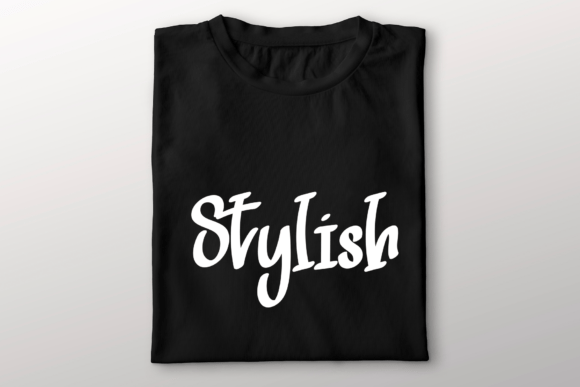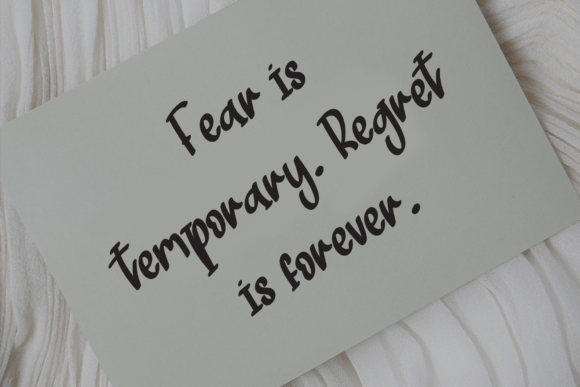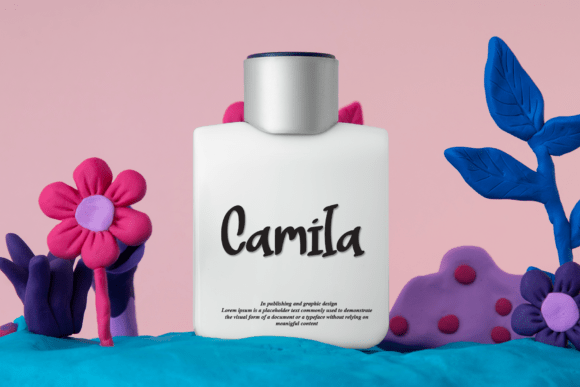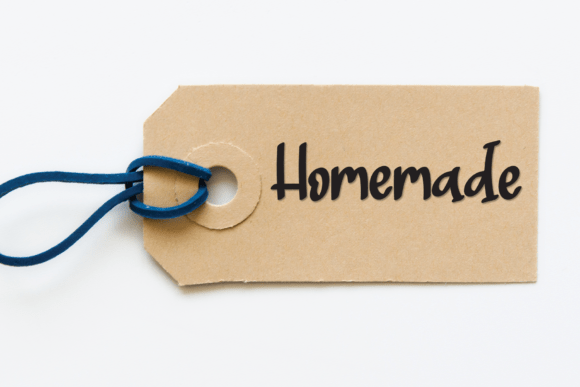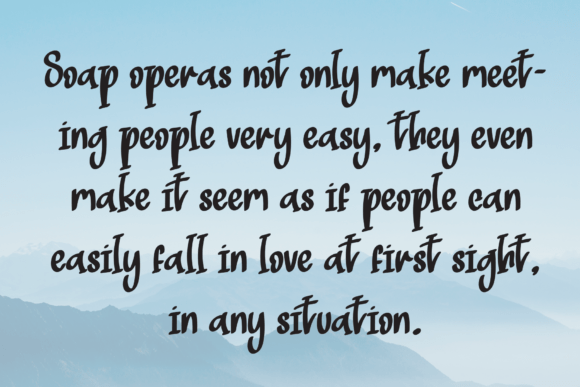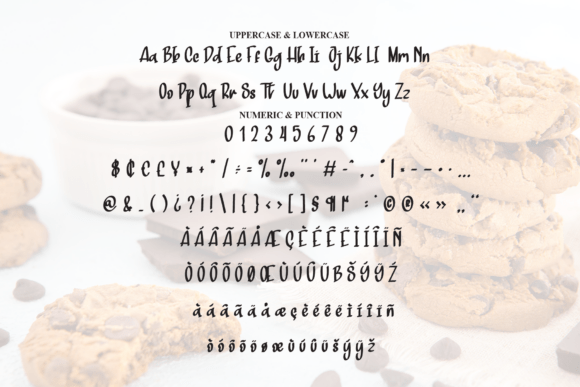
Introduction to Hey Cookies Font
Have you ever been stuck trying to find the perfect font for your creative project, only to end up with something that just doesn’t quite fit? We’ve all been there. But what if I told you that there’s a font that can add a touch of whimsy and personality to even the most mundane designs? Enter the Hey Cookies Font, a high-quality, free download that’s perfect for designers looking to add a little extra something to their work.
With its transparent background and wide range of applications, the Hey Cookies Font is a valuable resource for any creative project. Whether you’re working on a wall display, wedding invitation, or social media post logo, this font is sure to impress. And with its long-term support and free features, you can trust that you’re getting a top-notch design resource that will keep you going for years to come.
Key Features of Hey Cookies Font
- High-quality design: The Hey Cookies Font offers a unique and modern design perfect for creative projects.
- Transparent background: This font features a transparent background, allowing for easy customization and seamless integration with various design elements.
- Perfect for digital design: With a resolution of 300 DPI, the Hey Cookies Font is ideal for digital design projects, including web design, graphic design, and more.
- Unique and playful style: The font’s unique and playful style makes it an excellent choice for creative projects, such as children’s books, party invitations, and more.
Honest Review: Hey Cookies Font
I recently stumbled upon the Hey Cookies Font, a design resource that has left me feeling quite optimistic about its potential. The font is offered as a free download, which is always a plus when it comes to creative projects.
- What works well: ✨ The font is a high-quality, playful design that’s perfect for adding a touch of whimsy to your projects. The transparent background makes it easy to layer with other design elements.
- What works well: ✨ The font is incredibly versatile and can be used for a wide range of creative projects, from children’s book illustrations to social media graphics.
- ⚠️ The font may not be suitable for formal or professional projects, as it’s a bit too playful for those types of designs.
- ⚠️ The font’s transparency can sometimes make it difficult to read, especially on darker backgrounds.
Overall, I’m really impressed with the Hey Cookies Font. While it may not be the perfect choice for every project, it’s a fantastic design resource for anyone looking to add a bit of personality to their work. If you’re in the market for a fun, high-quality font, I’d definitely recommend giving it a try.
The Hey Cookies Font is commonly used in graphic design, digital art, and creative writing projects. Its transparent background and high-quality design make it perfect for creating eye-catching graphics, posters, and flyers.
Yes, Hey Cookies Font supports transparent backgrounds, making it perfect for designers who need to create designs with a clear background. The font is designed to work seamlessly with transparent backgrounds, ensuring that your design looks professional and polished.